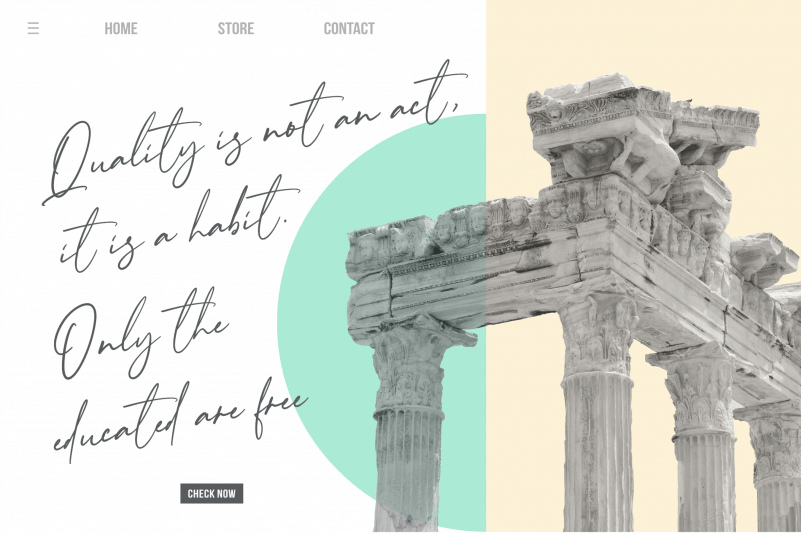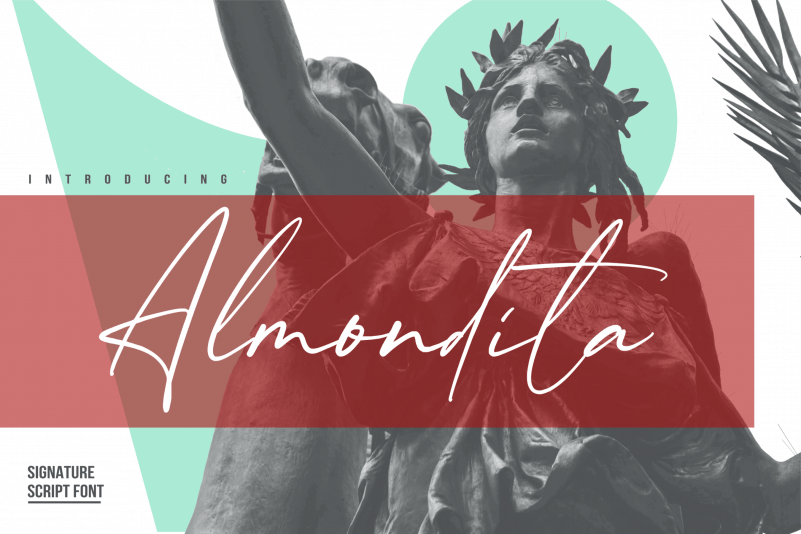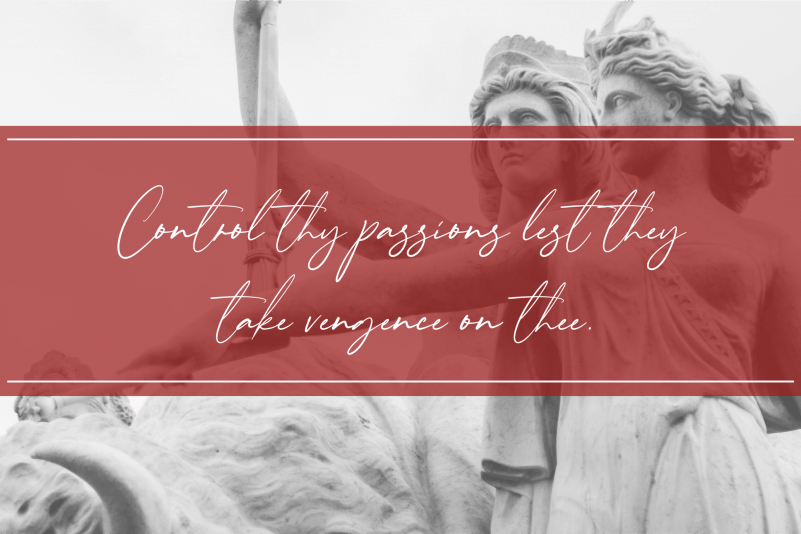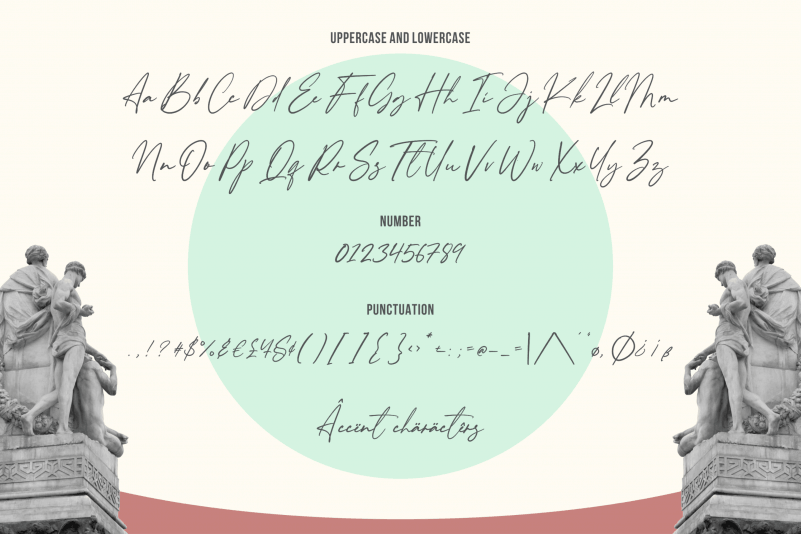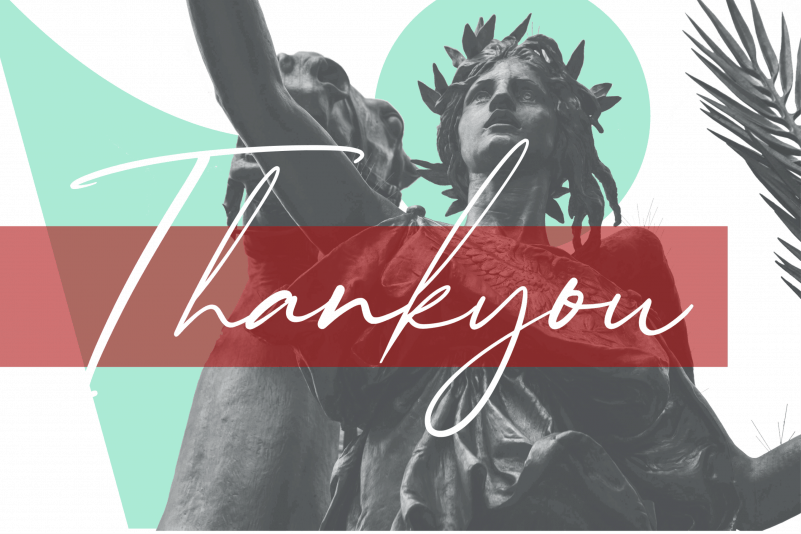
Almondita Signature Script Font
Proudly Present, Almondita Signature Script Font. It’s a trendy script font. and also very suitable for product packaging, branding projects, megazine, social media, or just used to express words over the background.